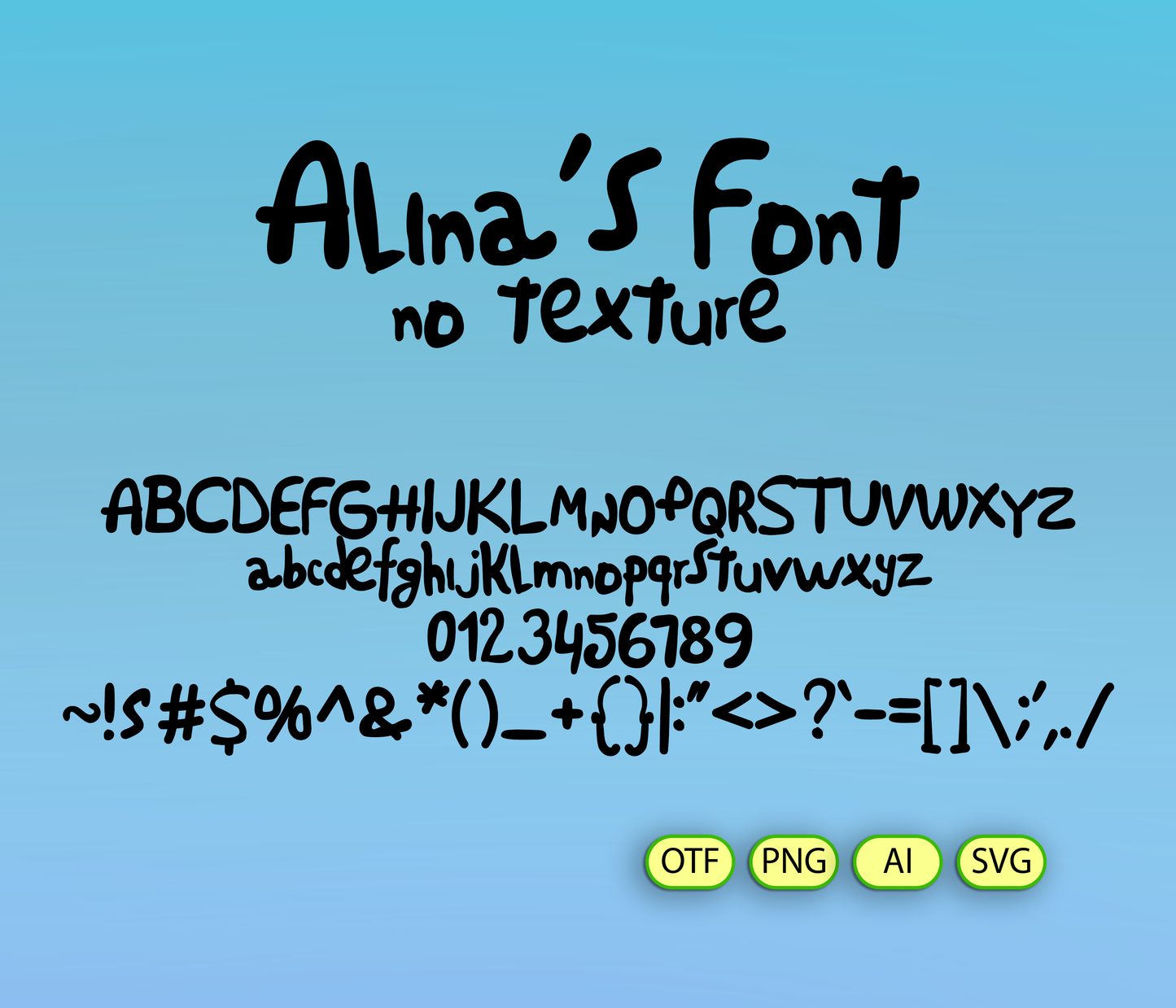
Animated Family Comedy Font
Step into the vibrant world of Springfield with our whimsical font inspired by America's favorite animated family. This typeface captures the essence of the long-running cartoon series, known for its satirical take on middle-class life and pop culture. Each character in this font reflects the show's distinctive style, perfect for projects that aim to evoke the humor and charm of the beloved yellow-skinned characters.
- !!for the other "s" use shift + 2 (@) symbol
What You Can Do With Animated Family Comedy Textured Font
Simpsons Font